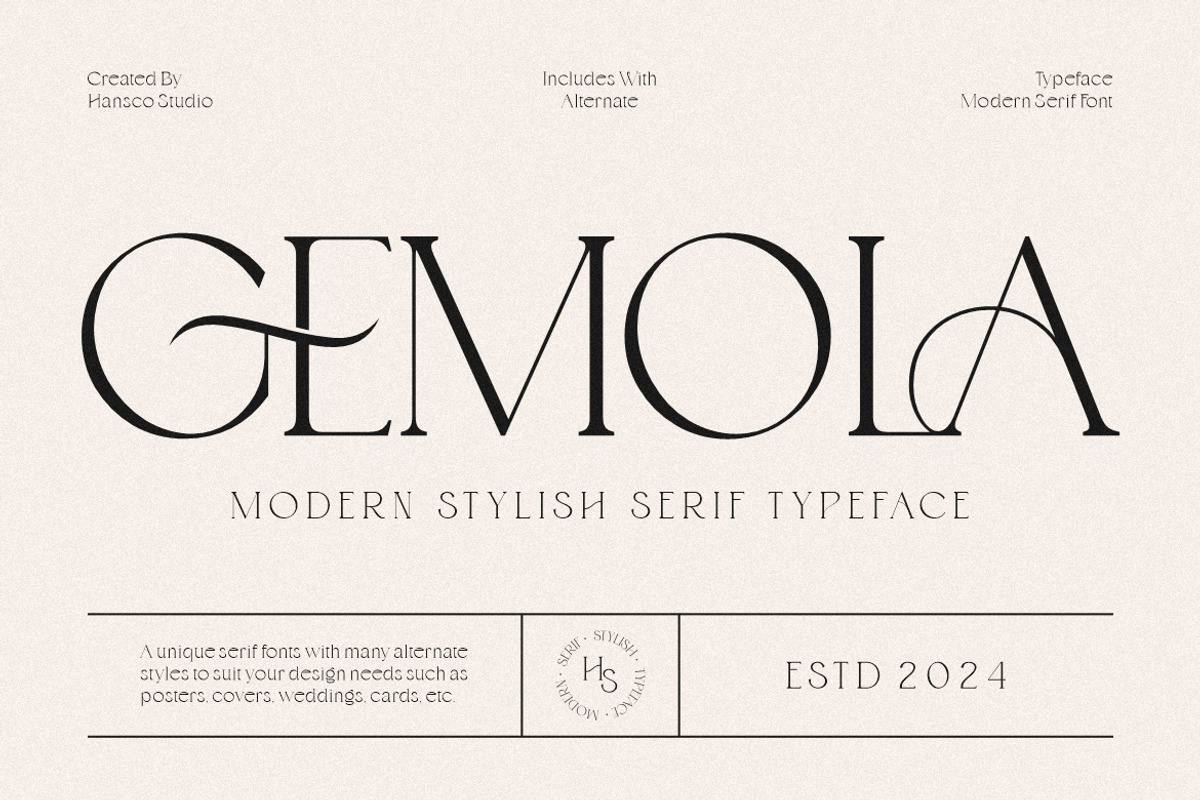
Gemola Font stands out as a beautifully crafted display serif font that blends modern aesthetics with timeless elegance. Designed to inspire romantic vibes, this font transforms your creative projects with a unique yet luxurious style. Whether you are working on branding, logos, posters, or wedding invitations, Gemola offers a sophisticated look that elevates your designs and captures attention.
Why Gemola Font Is Perfect for Multipurpose Design Projects
Gemola is not just a font; it is a powerful design tool that adapts seamlessly to a wide range of creative needs. Its elegant serif structure combined with a modern touch makes it ideal for various applications such as product packaging, advertising campaigns, print templates, quotes, crafts, and more. The font’s versatility ensures it fits perfectly in both digital and print environments, enhancing the visual appeal of your work.
Rich Character Set and OpenType Features for Creative Freedom
This font comes equipped with a comprehensive character set including uppercase and lowercase letters, numerals, punctuation, symbols, ligatures, and stylistic alternates. Gemola is PUA encoded, which means you can easily access all its charming glyphs and swashes using Character Map on Windows or Font Book on Mac. These OpenType features empower you to customize your typography with flair and precision, adding unique touches to your designs effortlessly.
Multilingual Support and Compatibility Across Platforms
Key Features of Gemola Font at a Glance
| Feature | Description |
|---|---|
| Elegant Display Serif | Combines modern style with classic serif elegance for versatile use. |
| Comprehensive Character Set | Includes uppercase, lowercase, numerals, punctuation, symbols, ligatures, and stylistic alternates. |
| PUA Encoded | Access all glyphs and swashes easily via Character Map or Font Book. |
| Multilingual Support | Supports multiple languages for global design projects. |